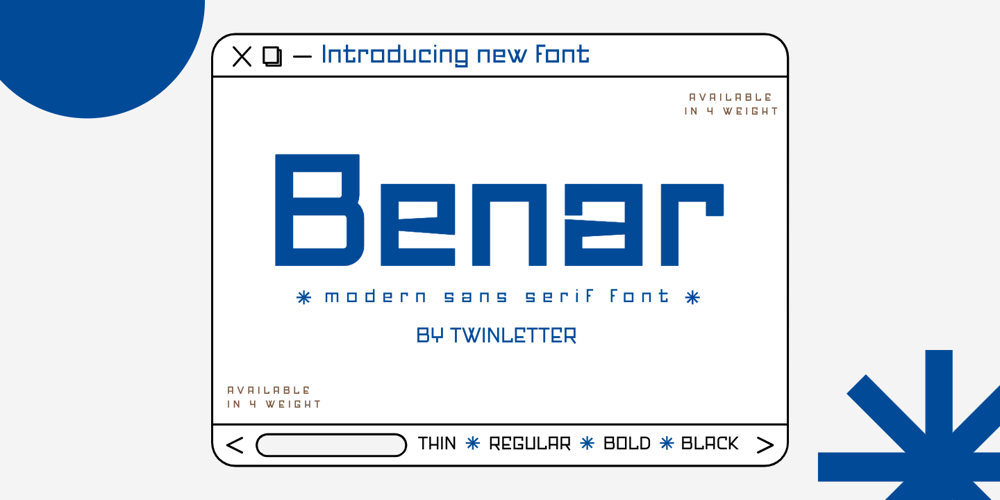
Benar Font Family was designed by Rozikan and published by Twinletter. Benar contains 4 styles and family package options. Benar is our newest san serif, and it has amazing fonts for your projects. This typeface is ideal for branding, advertising, posters, banners, packaging, headlines, magazines, websites, logo designs, banners, social media designs, and many other uses. Light, Regular, Medium, and Thick are the four available weights. It features a clean and beautiful aesthetic that can help your project appear more serene, and unique and grab the attention of the audience.of course, your various design projects will be perfect and extraordinary if you use this font because this font is equipped with a font family, both for titles and subtitles and sentence text, start using our fonts for your extraordinary projects.